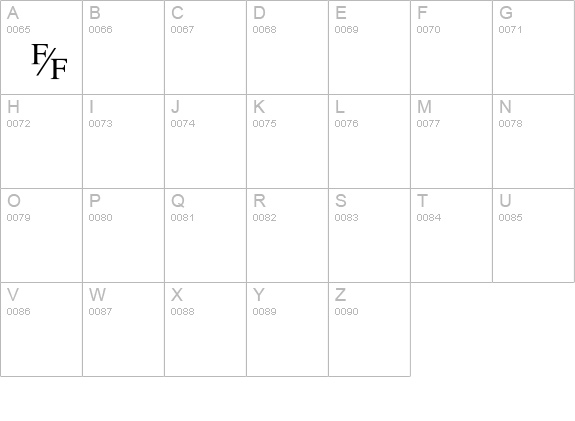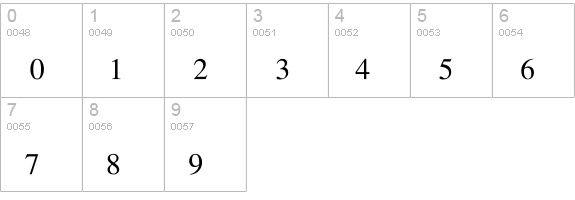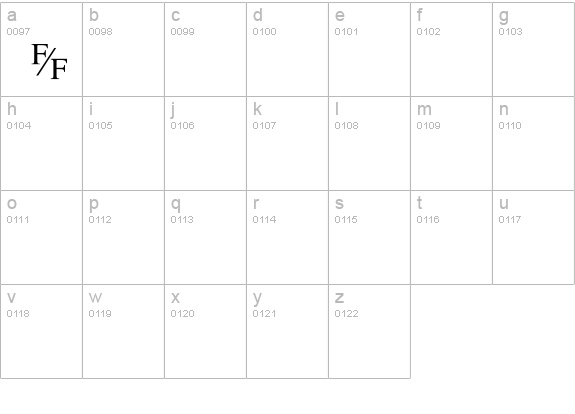
TmsFraction-Normal is the standard, neutral variant in the TmsFraction typeface family \xE2\x80\x94 well suited to general body text, paragraphs, and standard typographic work.
TmsFraction-Normal is a versatile and elegant font that combines the beauty of traditional typography with a touch of modern design. With its clean lines and graceful curves, this font is perfect for a wide range of projects, from elegant invitations to stylish logos. What sets TmsFraction-Normal apart is its unique ability to effortlessly blend in with any design style. Whether you are working on a classic wedding invitation or a contemporary branding project, this font will add a touch of sophistication and style. One of the best things about TmsFraction-Normal is that it is freely available to download at FontsMarket.com. This means that you can easily access this beautiful font without any hassle. Whether you are a professional designer or a hobbyist, having access to high-quality fonts like TmsFraction-Normal can greatly enhance your creative projects. So why wait? Download TmsFraction-Normal today and start adding a touch of elegance to your designs. With its timeless beauty and versatility, this font is sure to become a staple in your font library. Don't miss out on the opportunity to use this stunning font in your next project. Get TmsFraction-Normal for free at FontsMarket.com and unleash your creativity.